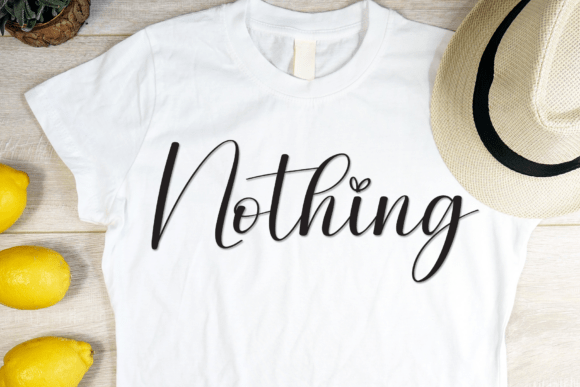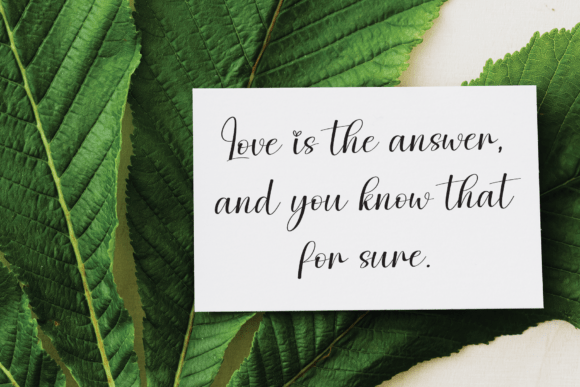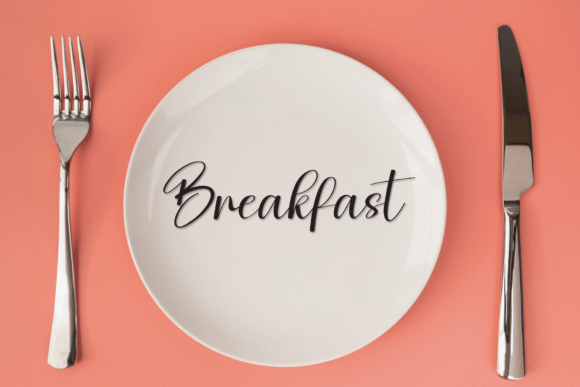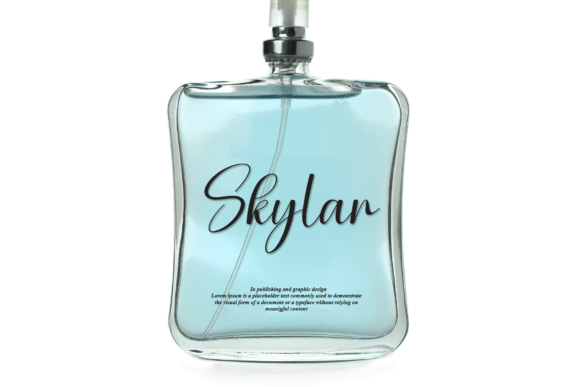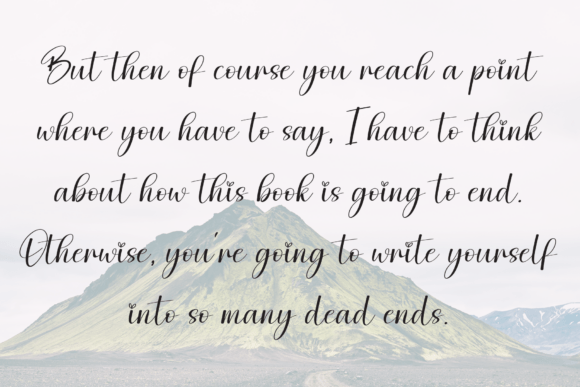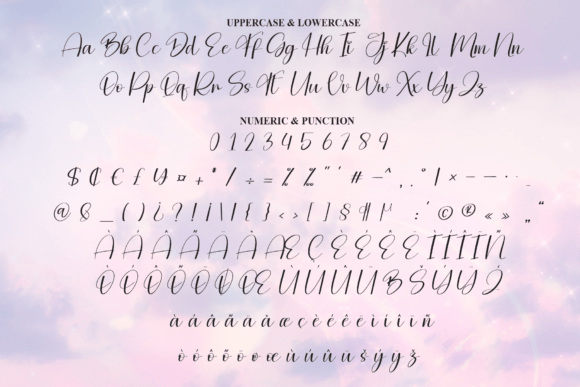
Introducing Charmy Font: Elevate Your Designs with Elegance and Creativity
Are you a designer, crafter, or DIY enthusiast looking for a unique and stylish font to take your projects to the next level? Look no further than Charmy Font, a beautifully crafted typeface designed to add a touch of elegance and sophistication to your creations. With its latest style letters, Charmy Font is perfect for a wide range of applications, from wall displays and wedding invitations to social media post logos, advertisements, product packaging, and more.
What Makes Charmy Font Special?
Charmy Font is more than just a font – it’s a creative tool that can help you express your unique style and vision. Its special creative products are designed to give you an extraordinary experience, allowing you to add a personal touch to your designs and make them stand out from the crowd. Whether you’re a professional designer or a DIY enthusiast, Charmy Font is the perfect choice for anyone looking to add a touch of elegance and sophistication to their projects.
Charmy Font is incredibly versatile and can be used for a wide range of applications, including:
• Wall displays and signage
• Social media post logos and graphics
• Advertisements and marketing materials
• Product packaging and labeling
• Product designs and branding
• Photography and watermarks
• Invitations and greeting cards
• Stationery and letterhead
Wherever you need to add a touch of elegance and sophistication to your designs, Charmy Font is the perfect choice.
Why Choose Charmy Font?
So why choose Charmy Font over other fonts on the market? Here are just a few reasons:
• Unique and stylish design
• High-quality and versatile
With Charmy Font, you can trust that you’re getting a high-quality font that will help you take your designs to the next level.
If you’re ready to add a touch of elegance and sophistication to your designs, look no further than Charmy Font. With its unique and stylish design, comprehensive range of features, and compatibility with a wide range of design software, Charmy Font is the perfect choice for designers, crafters, and DIY enthusiasts alike.